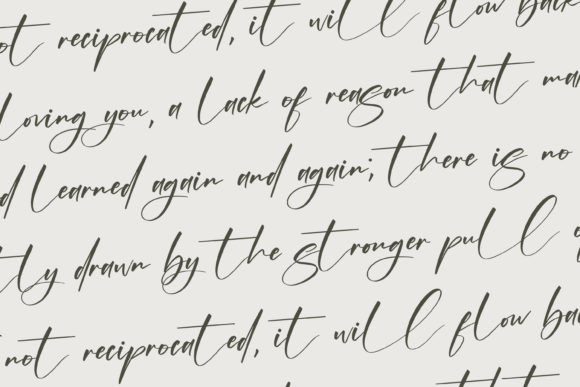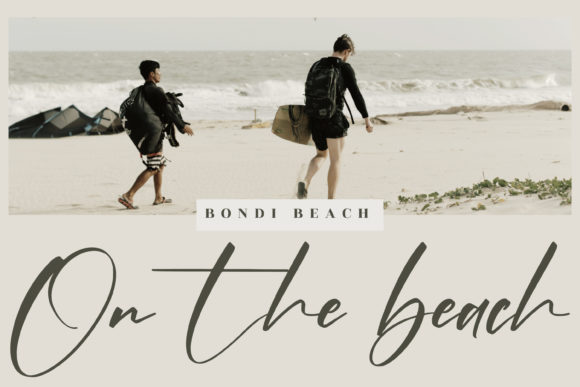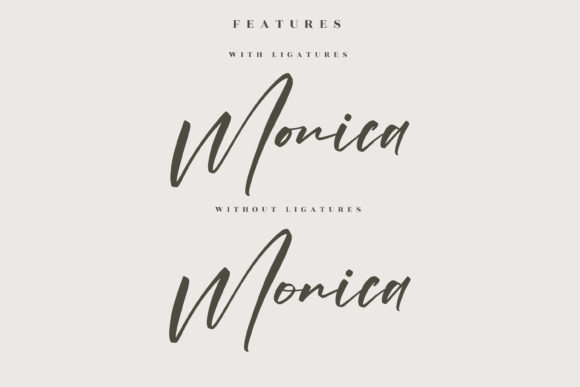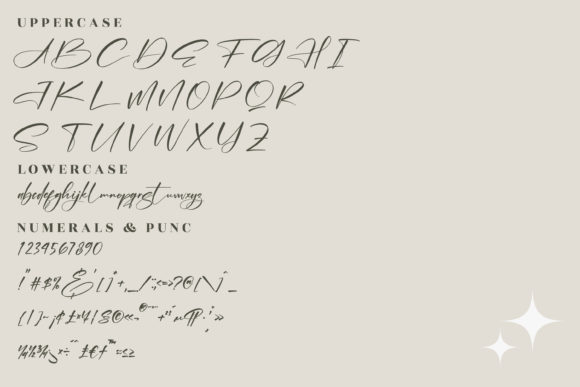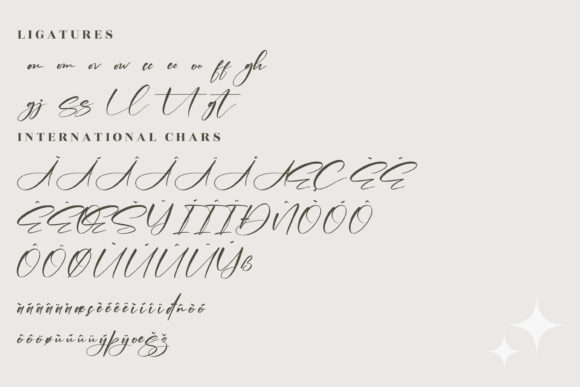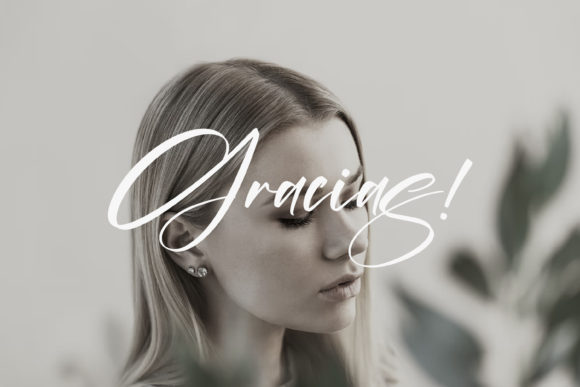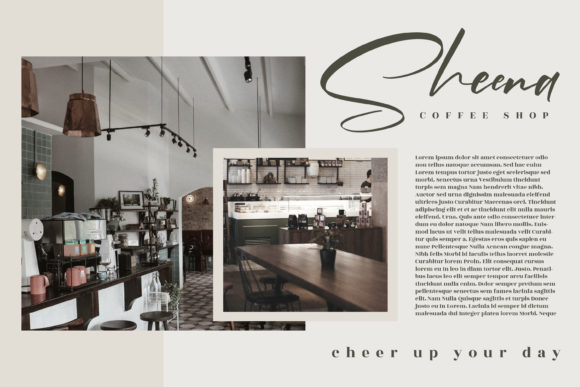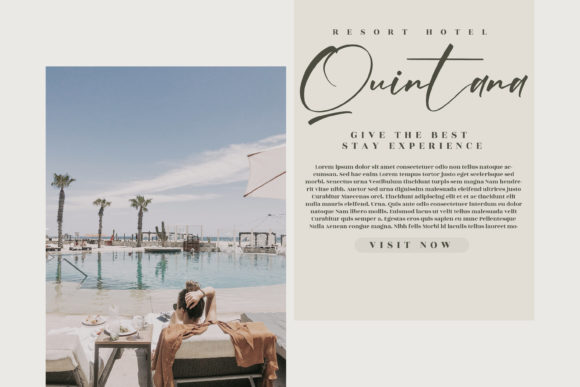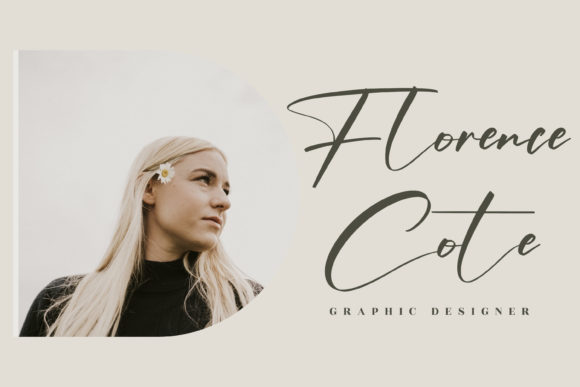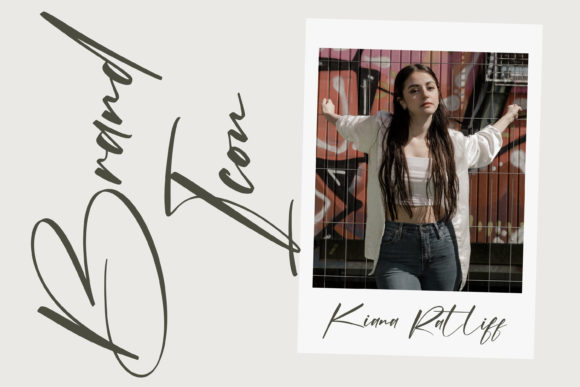
Alishanty Signature Font
About Alishanty Signature Font
Alishanty Signature is a modern and stylish handwritten font. Use this font for with your designs and explore its endless possibilities.